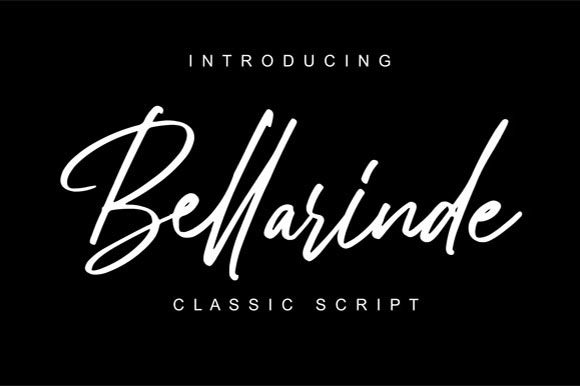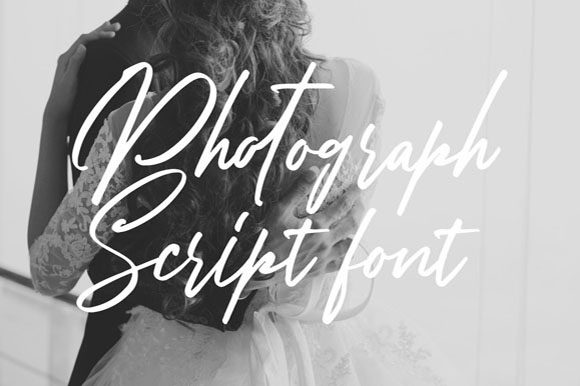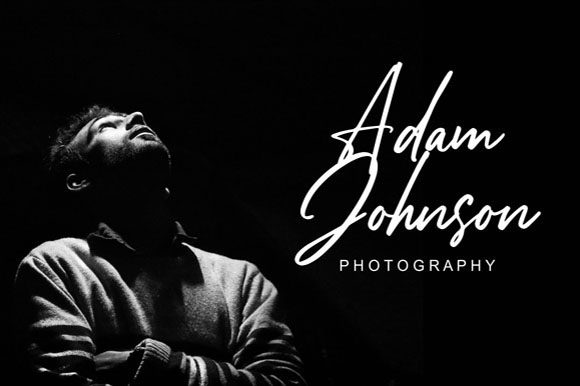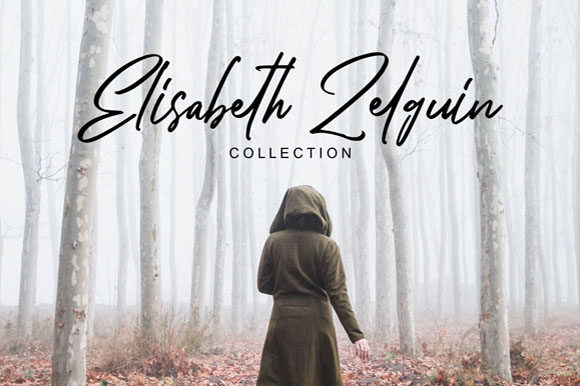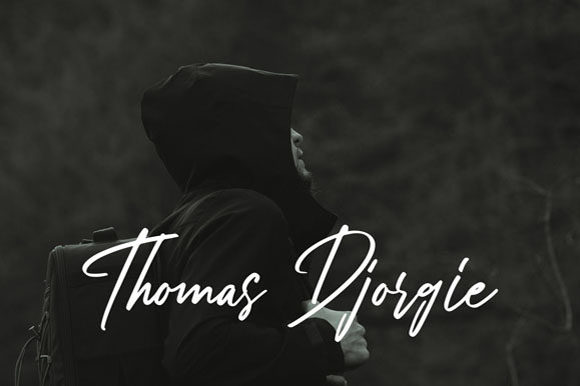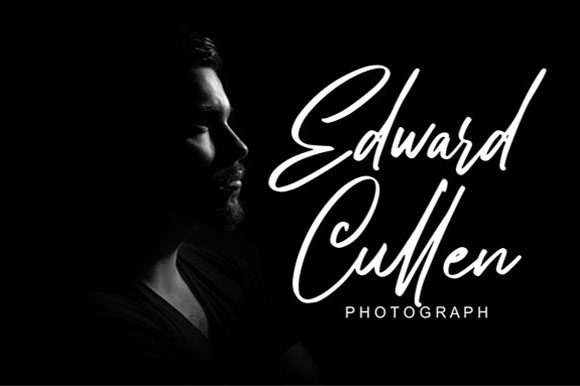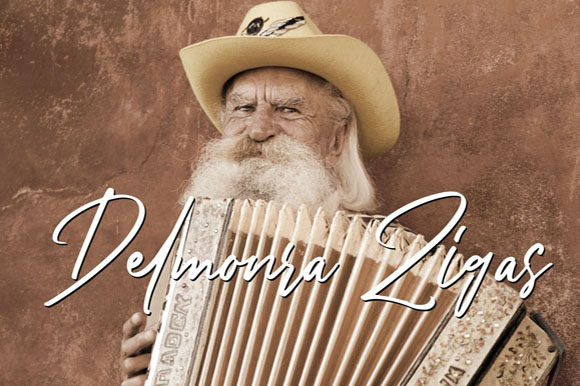
Bellarinde Font
About Bellarinde Font
Bellarinde features a gorgeous minimalist script style that will deliver any message with style. It will add that authentic vibe to any design project!